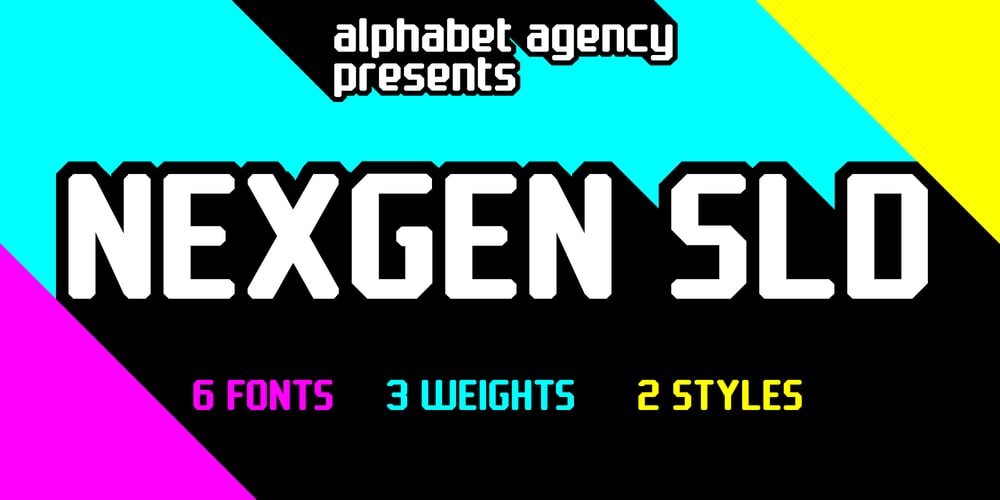
Nexgen SLD Font Family was designed by Swinn Jonathan and published by Alphabet Agency. Nexgen SLD contains 6 styles and family package options. Nexgen SLD font family is a modern sans serif font. The family includes 6 fonts, 3 weights each with 2 styles; regular and italic.The fonts are designed to be clean and easy to look for readability. The straight lines and diagonal cut at the corners of each character give the fonts their solid modern tech look.The family works great in all kinds of themes especially in tech, science and sports themes.